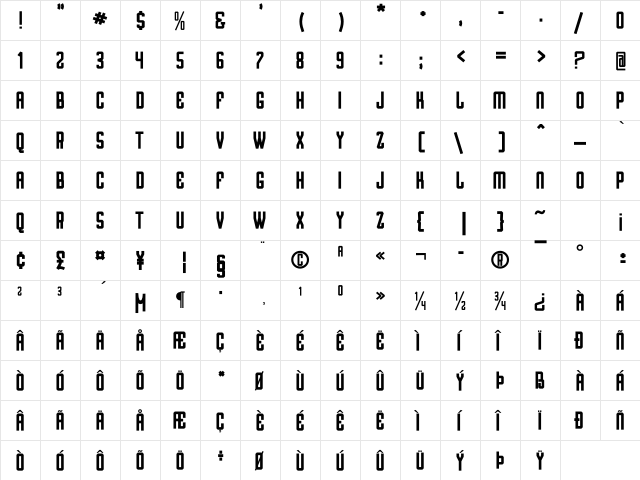
Rankerton Regular
| Designer | Kurnia Setyadi |
Design Context for Rankerton Typeface
Rankerton is a composed and adaptable typeface that performs quietly and consistently across a wide range of design contexts.